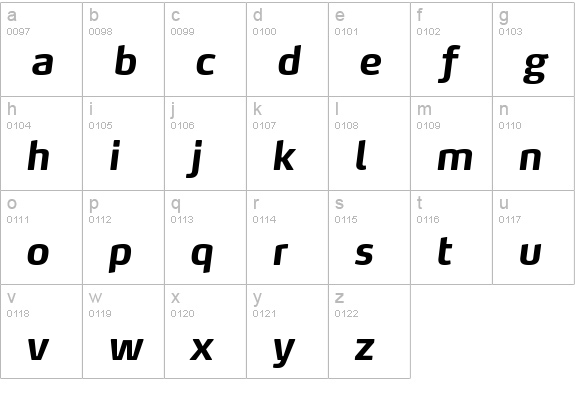
Max-BoldItalic Font Details
Introducing Max-BoldItalic, a striking and dynamic font that exudes confidence and modernity. With its bold and italicized design, this font commands attention and adds a touch of sophistication to any project. The sleek and powerful curves of Max-BoldItalic make it perfect for headlines, titles, and branding materials that need to make a bold statement. Best of all, Max-BoldItalic is available for free download at FontsMarket.com. This means you can easily access this stylish font and incorporate it into your designs with ease. Whether you're working on a website, poster, or logo, Max-BoldItalic is sure to elevate your project and leave a lasting impression on your audience. Download Max-BoldItalic today and unleash the power of this versatile and eye-catching font.